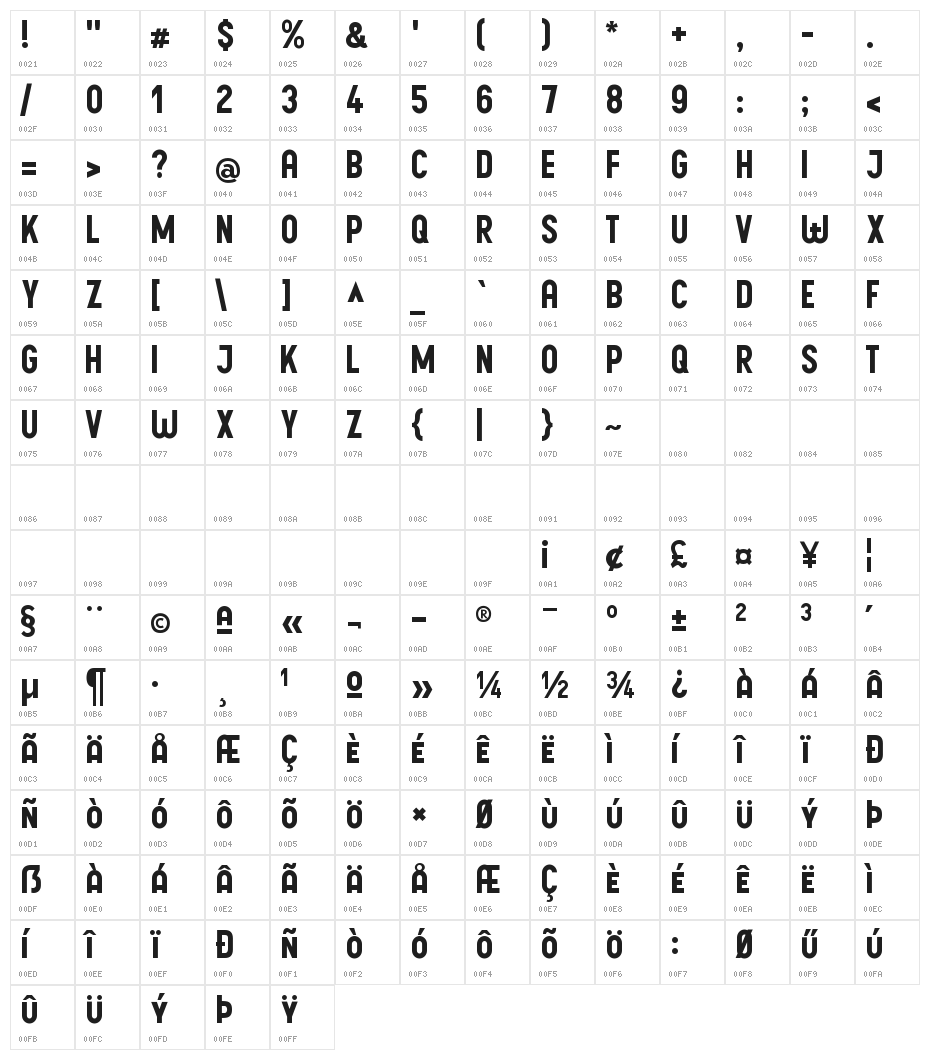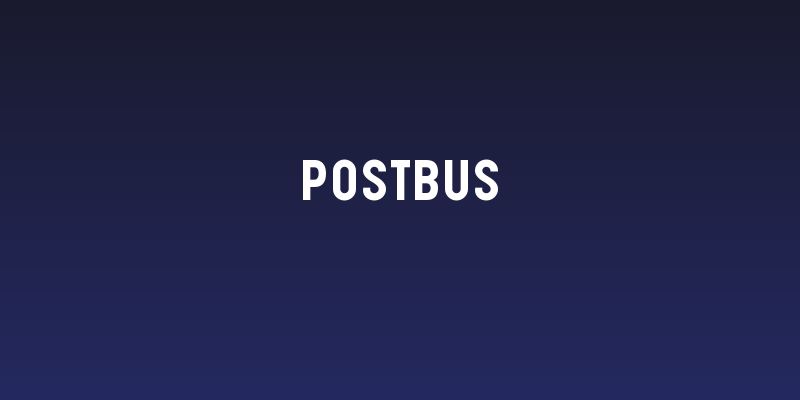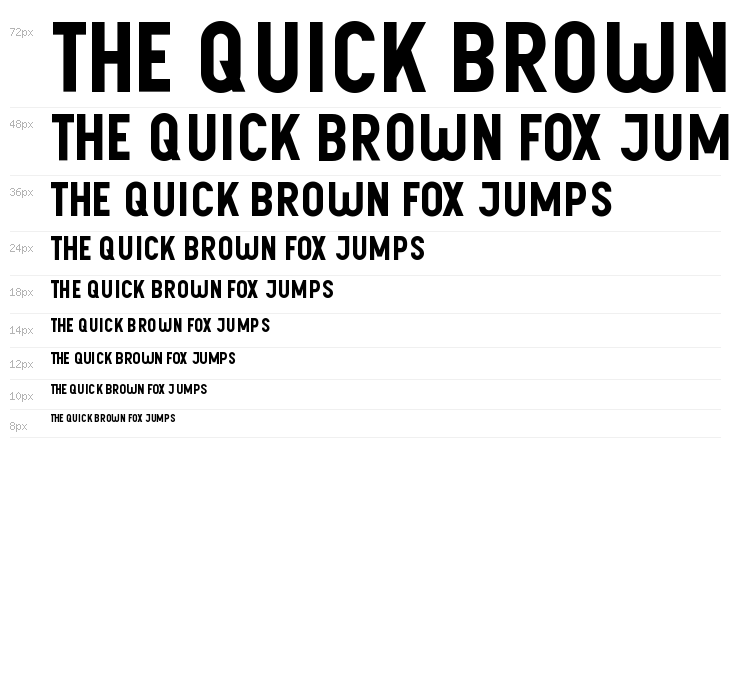
PostBus Font
PostBus Description
This font features a bold and modern sans-serif style with clean, geometric lines and a strong presence. The characters are uniformly structured, providing a sense of stability and clarity. The uppercase letters are particularly striking, with a consistent height and width that enhance readability. The numerals are equally bold, matching the overall aesthetic of the alphabet. Special characters are included, maintaining the same weight and style, ensuring a cohesive look across all text elements. This font is versatile, suitable for various design needs where a contemporary and impactful appearance is desired.
| Proposed Projects | Ideal for branding, advertising, posters, and headlines where a bold statement is needed. |